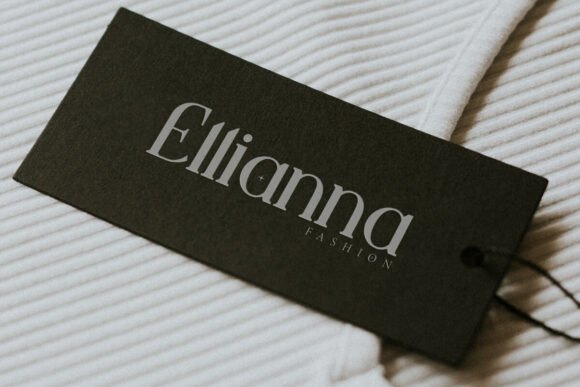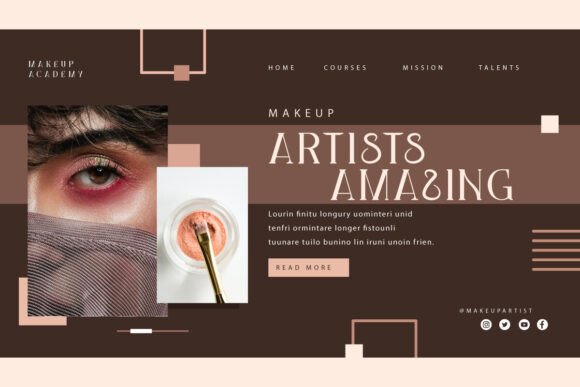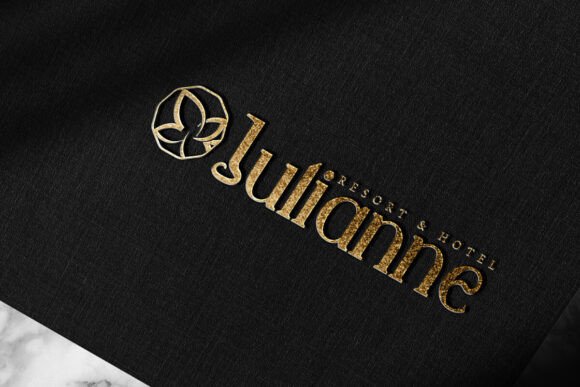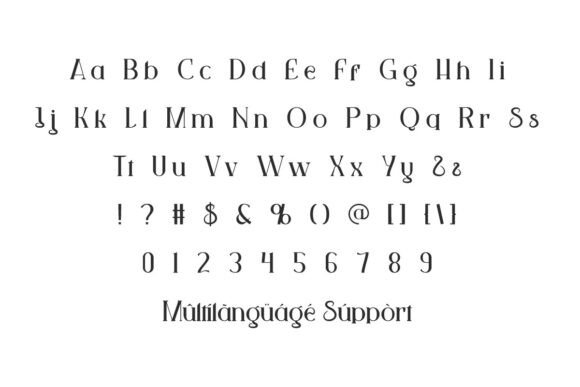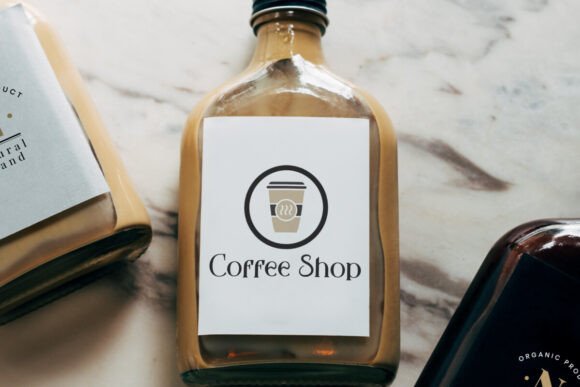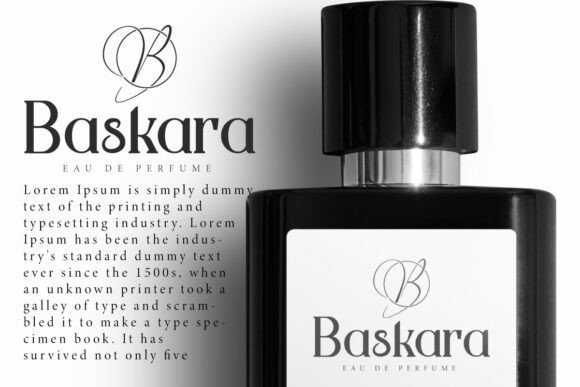
Fivester Font: Elevate Your Designs with Elegance and Mystery
Are you looking for a font that exudes luxury, sophistication, and a hint of mystery? Look no further than Fivester Font, a stunning serif display font that is sure to elevate your designs to the next level. In this article, we’ll dive into the world of Fivester Font, exploring its features, uses, and benefits for designers and crafters.
The Essence of Fivester Font
Fivester Font is a carefully crafted serif display font that embodies elegance and mystery. Its unique design makes it perfect for creating luxurious and eye-catching visuals that leave a lasting impression. Whether you’re working on a high-end brand campaign, a special event invitation, or a premium product packaging design, Fivester Font is the perfect choice.
Key Features of Fivester Font
- Elegant Serif Design: Fivester Font boasts a classic serif design that exudes sophistication and refinement.
- Mysterious Vibes: The font’s unique design elements create an air of mystery, perfect for luxury brands and high-end designs.
- Versatile Pairing: Fivester Font can be paired with a wide range of fonts to create stunning visual combinations.
- High-Quality Design: The font is meticulously crafted to ensure high-quality rendering, even at large sizes.
Fivester Font is incredibly versatile and can be used in a wide range of design projects, including:
- Brochures: Create stunning brochure designs that showcase your brand’s luxury and sophistication.
- Custom Designs: Use Fivester Font to create unique and eye-catching custom designs for various applications.
- Gift Boxes: Elevate your gift box designs with the luxurious feel of Fivester Font.
- Invitations: Create elegant and sophisticated invitations for special events and occasions.
- Labels: Use Fivester Font to create premium labels for products and packaging.
- Product Packaging: Add a touch of luxury to your product packaging designs with Fivester Font.
- Quotes: Create stunning quote designs that showcase your message in a elegant and sophisticated way.
- Screen Printing: Use Fivester Font to create unique and eye-catching designs for screen printing.
- Signage: Create premium signage designs that showcase your brand’s luxury and sophistication.
- Stationery: Elevate your stationery designs with the elegant feel of Fivester Font.
- Websites: Use Fivester Font to create stunning website designs that showcase your brand’s luxury and sophistication.
Why Choose Fivester Font?
With so many fonts available, why choose Fivester Font? Here are just a few reasons:
- Unique Design: Fivester Font’s unique design elements set it apart from other fonts, making it perfect for designers looking for something new and exciting.
- High-Quality Rendering: The font is meticulously crafted to ensure high-quality rendering, even at large sizes.
- Versatility: Fivester Font can be used in a wide range of design projects, making it a valuable addition to any designer’s toolkit.
In conclusion, Fivester Font is a stunning serif display font that is sure to elevate your designs to the next level. With its elegant design, mysterious vibes, and versatility, it’s perfect for designers and crafters looking to create luxurious and eye-catching visuals. Whether you’re working on a high-end brand campaign, a special event invitation, or a premium product packaging design, Fivester Font is the perfect choice. So why wait? Download Fivester Font today and start creating stunning designs that leave a lasting impression!